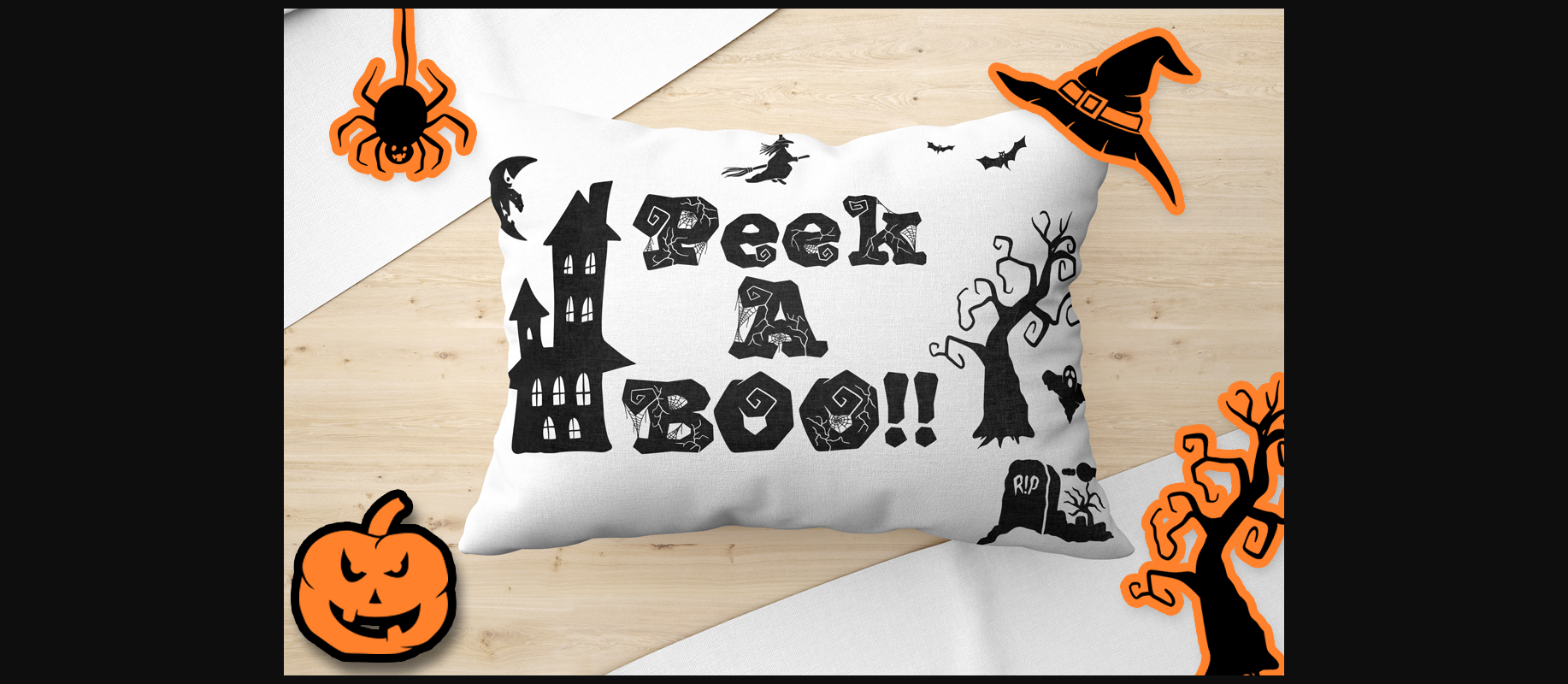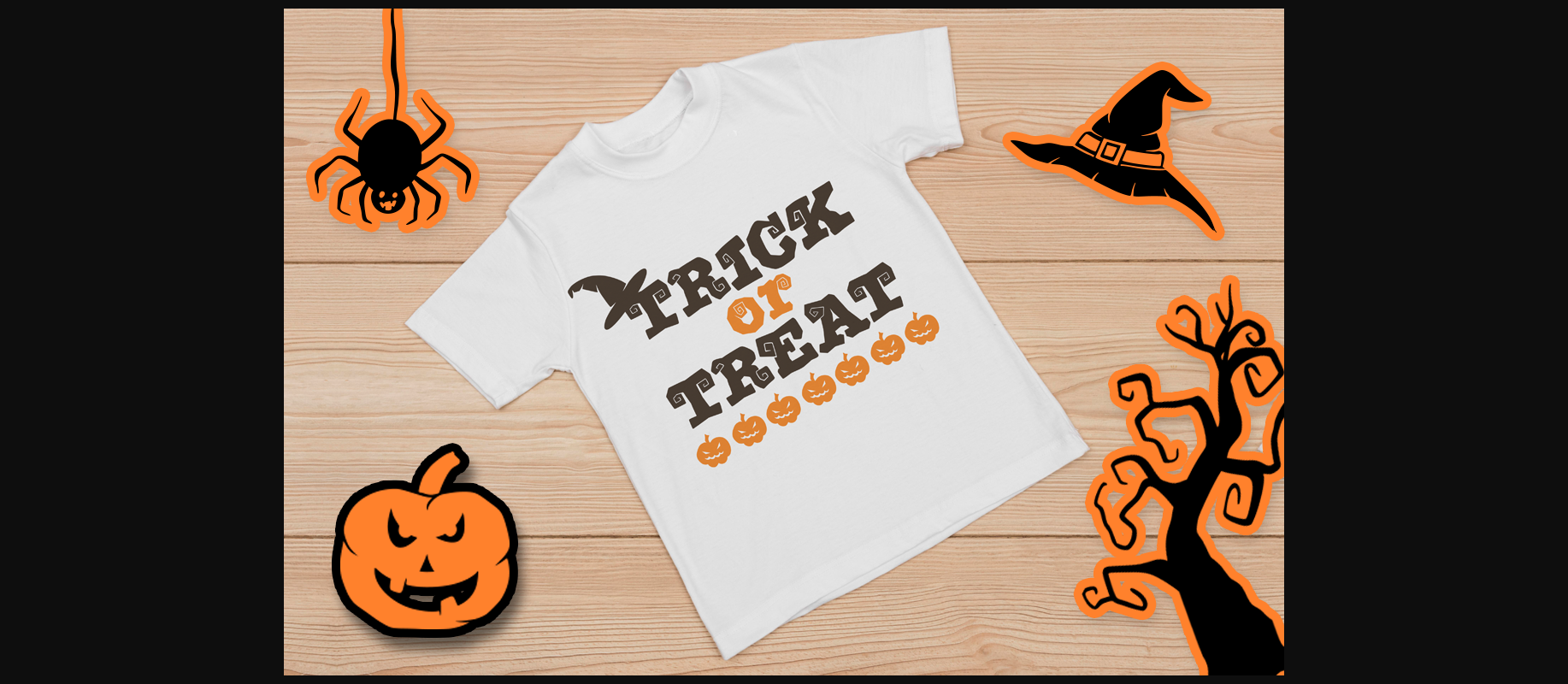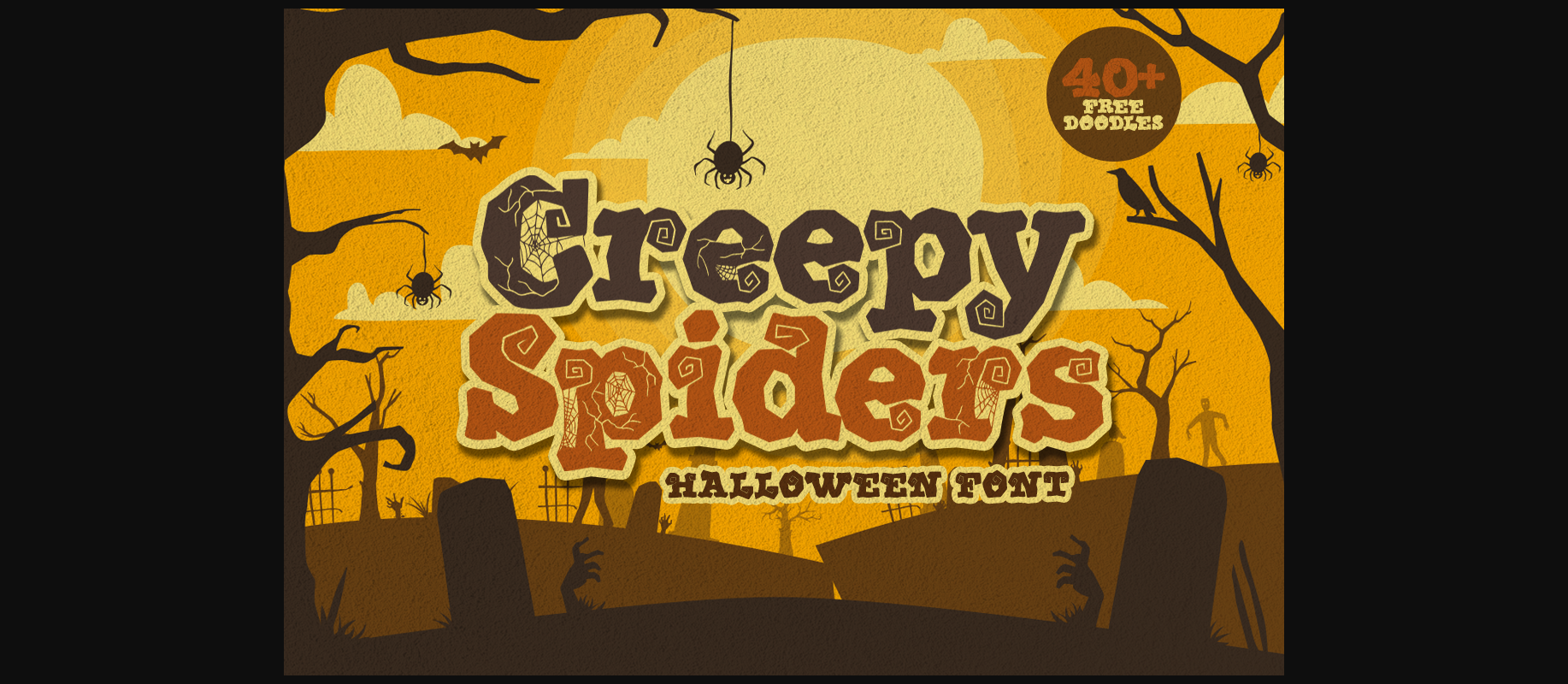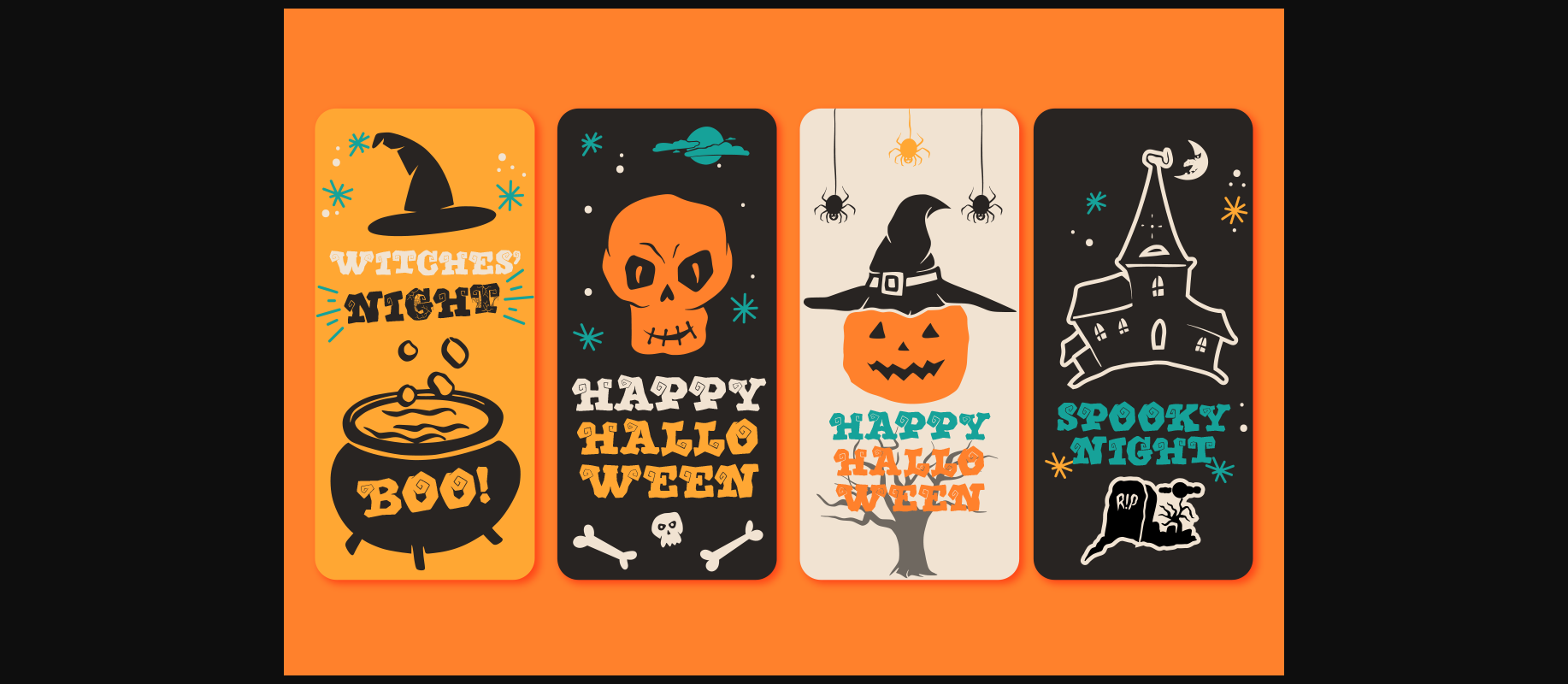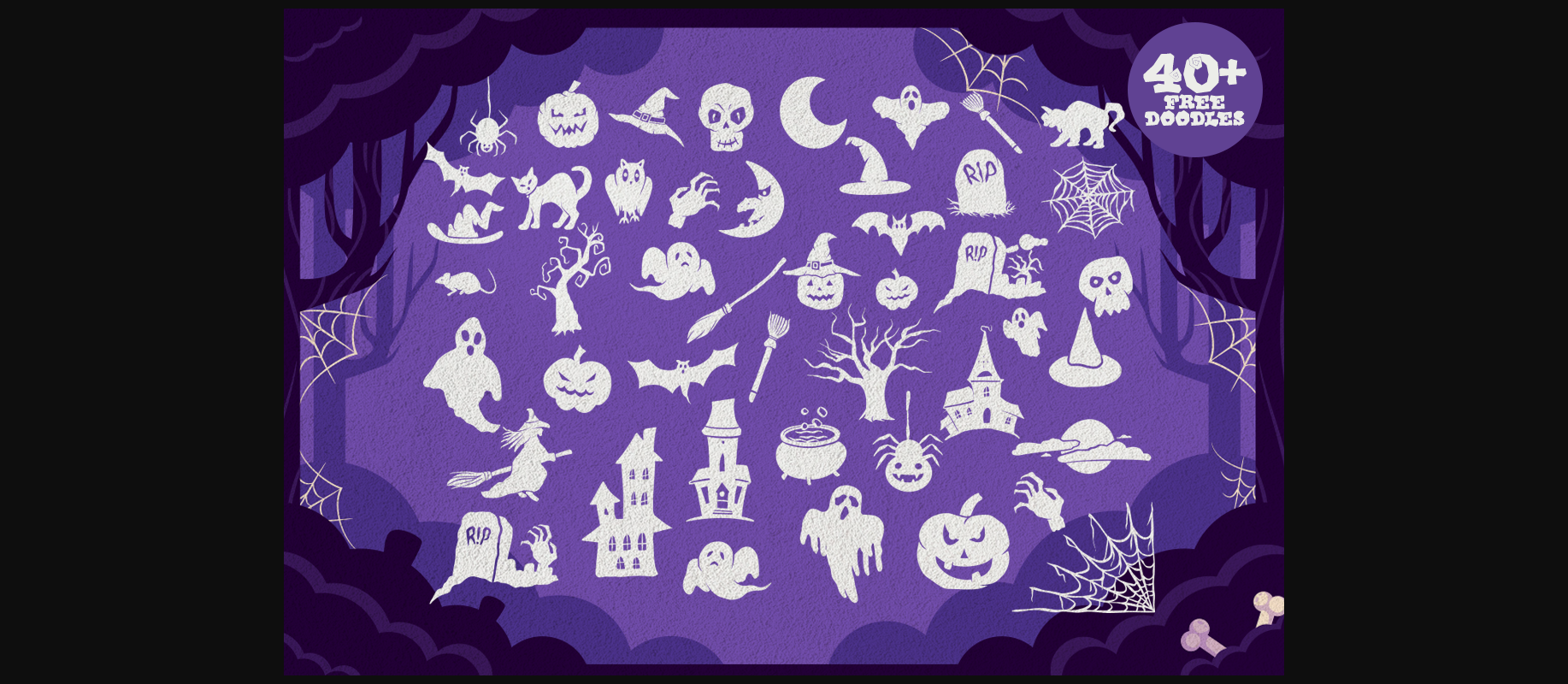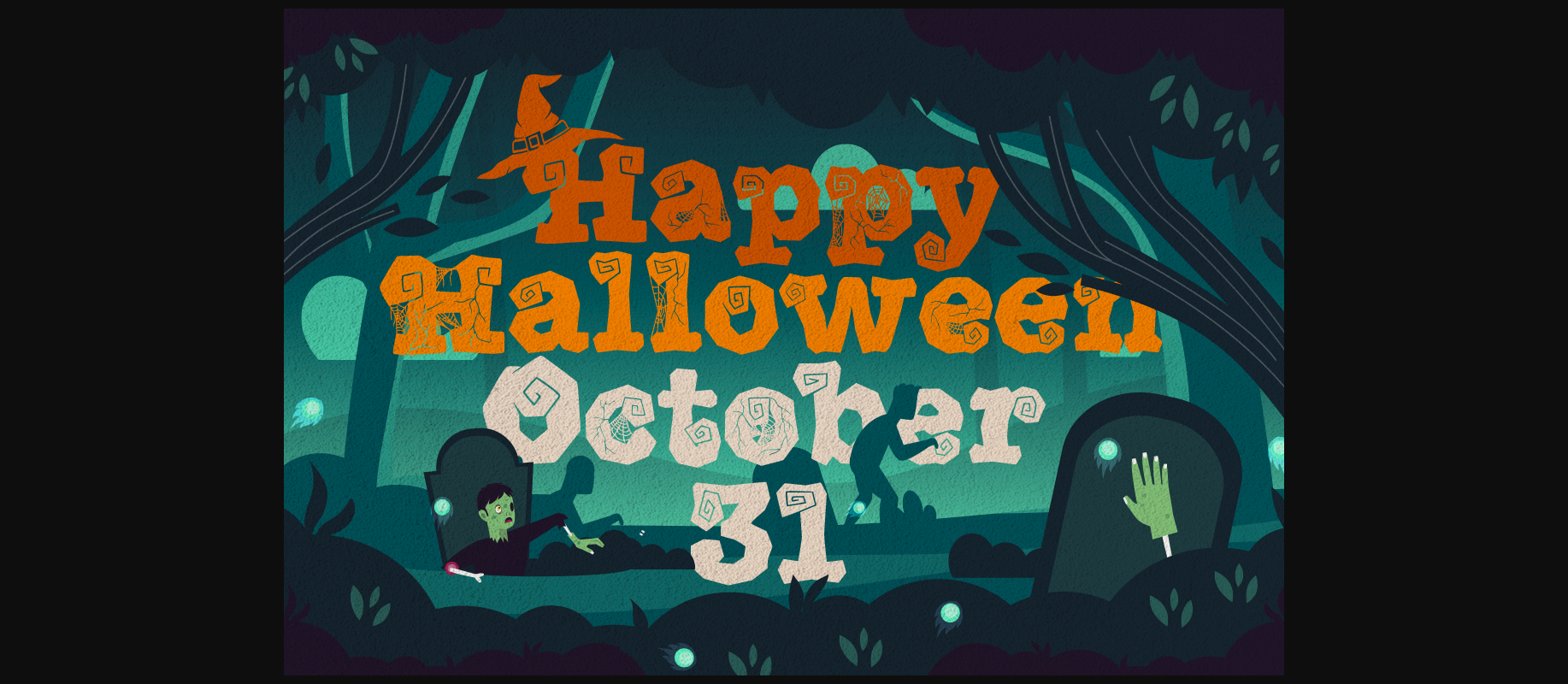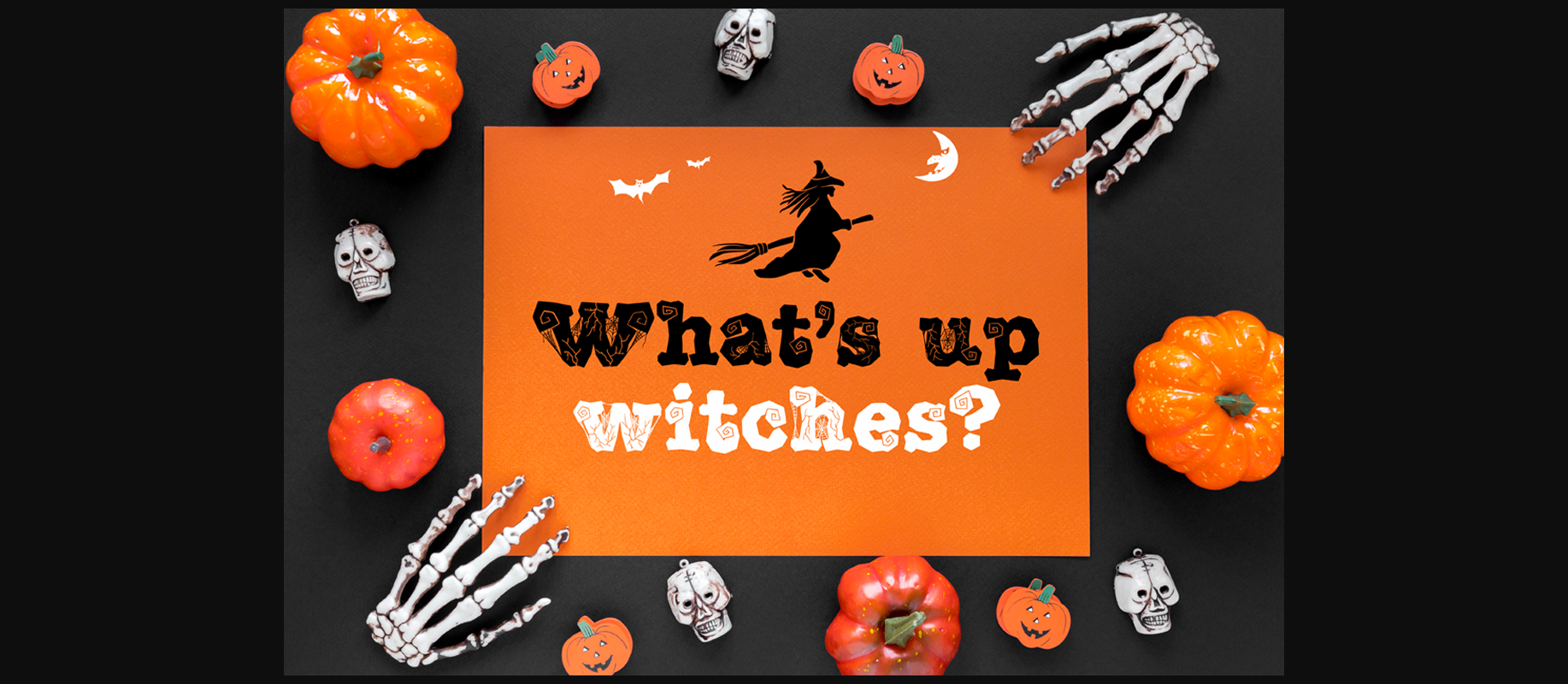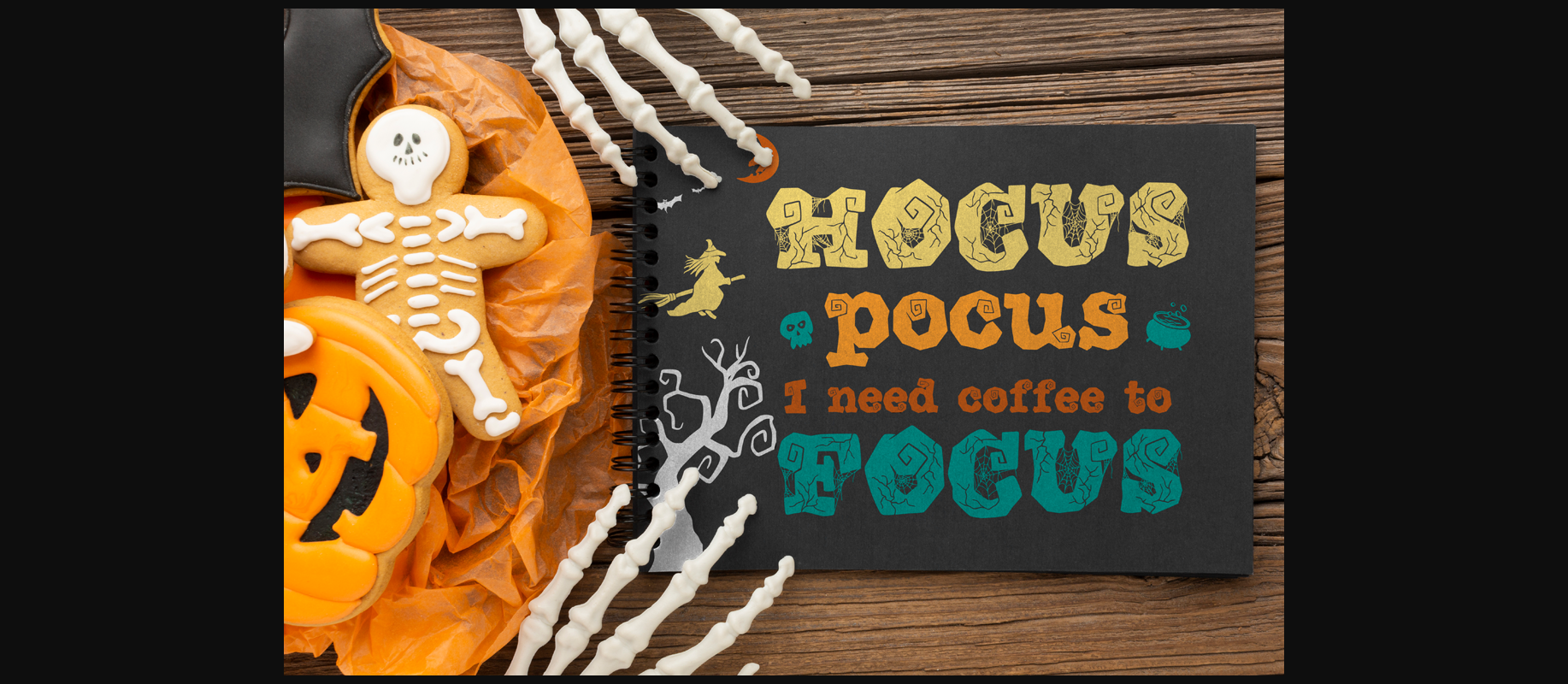
Creepy Spiders Font
Creepy Spiders is a cool and spooky decorative font. It is PUA encoded which means you can access all of the glyphs and swashes with ease!